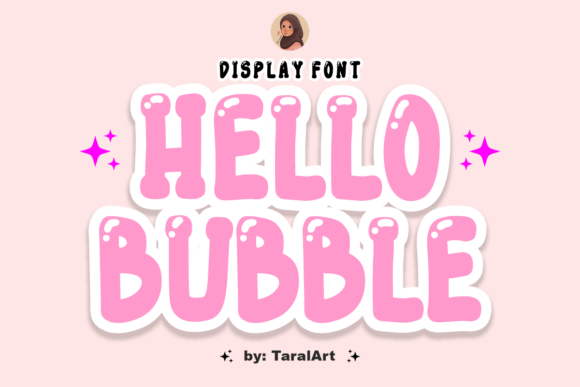
Introduction to Hello Bubble Font
Hello Bubble is a stunning, high-impact display font characterized by its massive, perfectly rounded, bubble-gum letterforms.
Featuring an incredibly glossy, soft texture and a radiant pink hue, this typeface screams fun, sweetness, and modern playfulness It has a bold, commanding presence while maintaining an undeniably lighthearted and friendly tone, making it highly versatile for creative projects.
Key Features of Hello Bubble Font
Why Choose Hello Bubble Font?